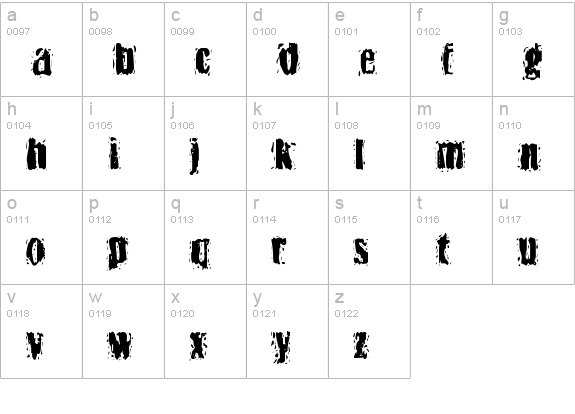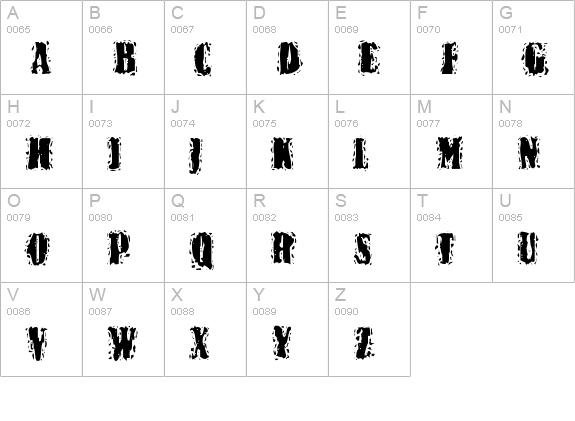
Introducing BN-Yiftach Rough font, a captivating display typeface that exudes a rugged and handcrafted aesthetic. Embodying a unique blend of rough edges and bold strokes, this font is perfect for adding a touch of authenticity and personality to your designs. The irregularities in its letterforms create a sense of raw energy and individuality, making it ideal for projects that require a distinct and edgy look. What makes BN-Yiftach Rough font even more appealing is that it is available for free download at FontsMarket.com. This means you can easily access this versatile typeface and incorporate it into your creative endeavors without any hassle. Whether you're working on a branding project, poster design, or any other creative venture, BN-Yiftach Rough font will surely make a bold statement and leave a lasting impression. Elevate your designs with this dynamic and expressive font today!